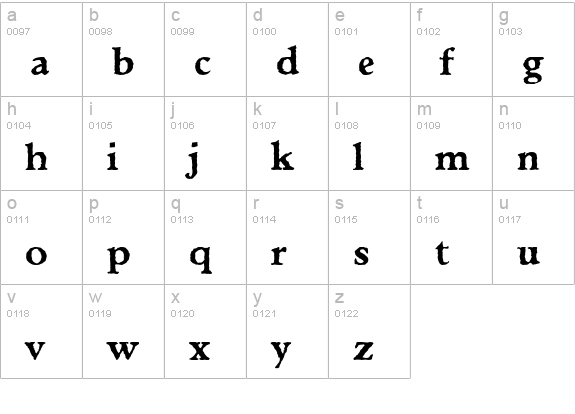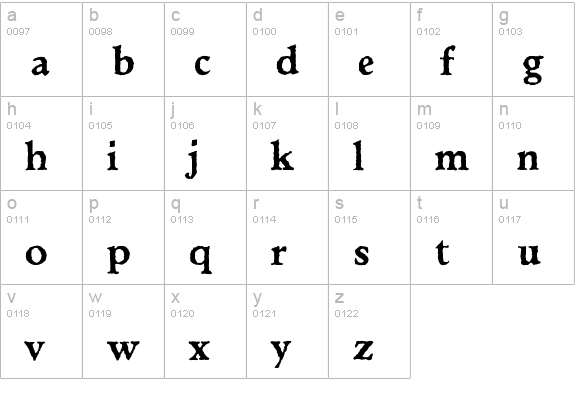
Weathered SF Font Details
Weathered SF is a captivating and distinctive font that brings a touch of vintage charm to your designs. With its weathered appearance and worn edges, this font exudes a sense of history and nostalgia, making it perfect for projects that require a touch of authenticity. The unique characteristic of Weathered SF lies in its ability to effortlessly blend modern design trends with the timeless appeal of vintage typography. Its slightly roughened texture gives it an aged look, reminiscent of old signs and faded prints. This versatile font is ideal for a wide range of design applications, including logos, posters, packaging, and more. Its bold and strong letterforms command attention, while its weathered details add depth and character to any design. One of the most remarkable aspects of Weathered SF is that it is available for free. As a designer, you can download this font at FontsMarket.com without any cost, allowing you to enhance your projects without breaking the bank. Its availability as a free download makes it accessible to a wide range of designers, regardless of their budget or resources. Whether you are working on a vintage-inspired project or simply want to add a touch of weathered elegance to your designs, Weathered SF is the perfect choice. Its unique blend of classic charm and modern appeal ensures that your designs will stand out from the crowd, captivating viewers and leaving a lasting impression. Download Weathered SF for free at FontsMarket.com and unlock the power of this timeless font to elevate your designs to new heights.